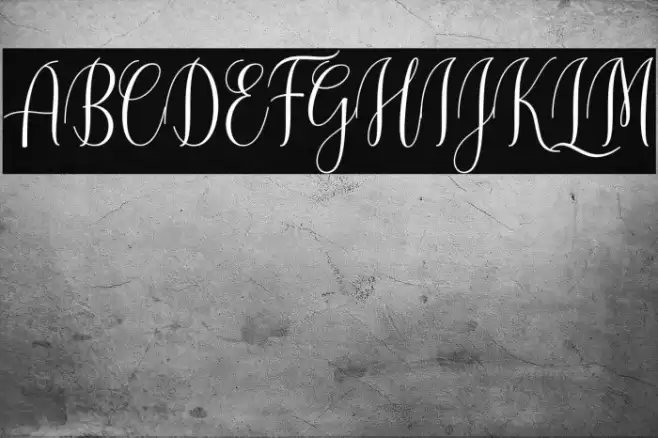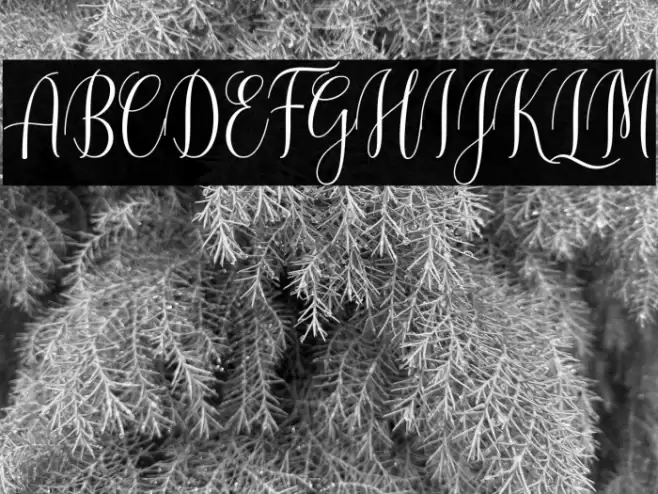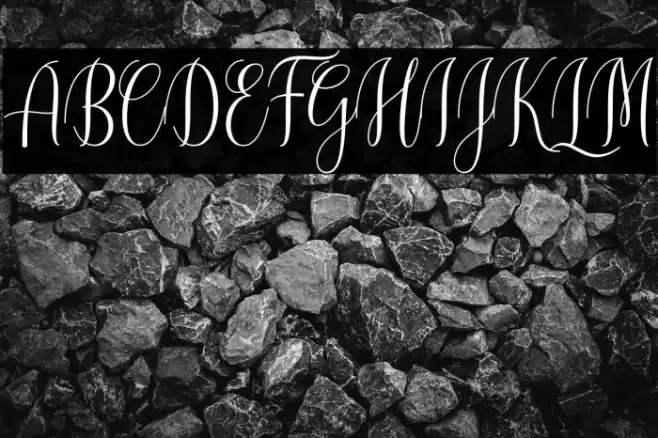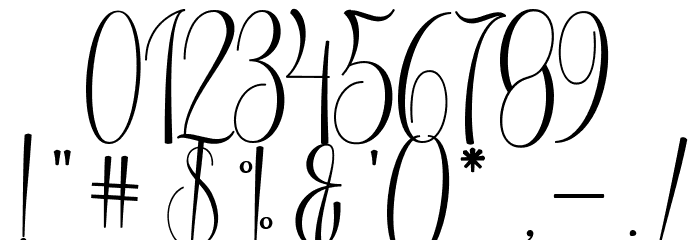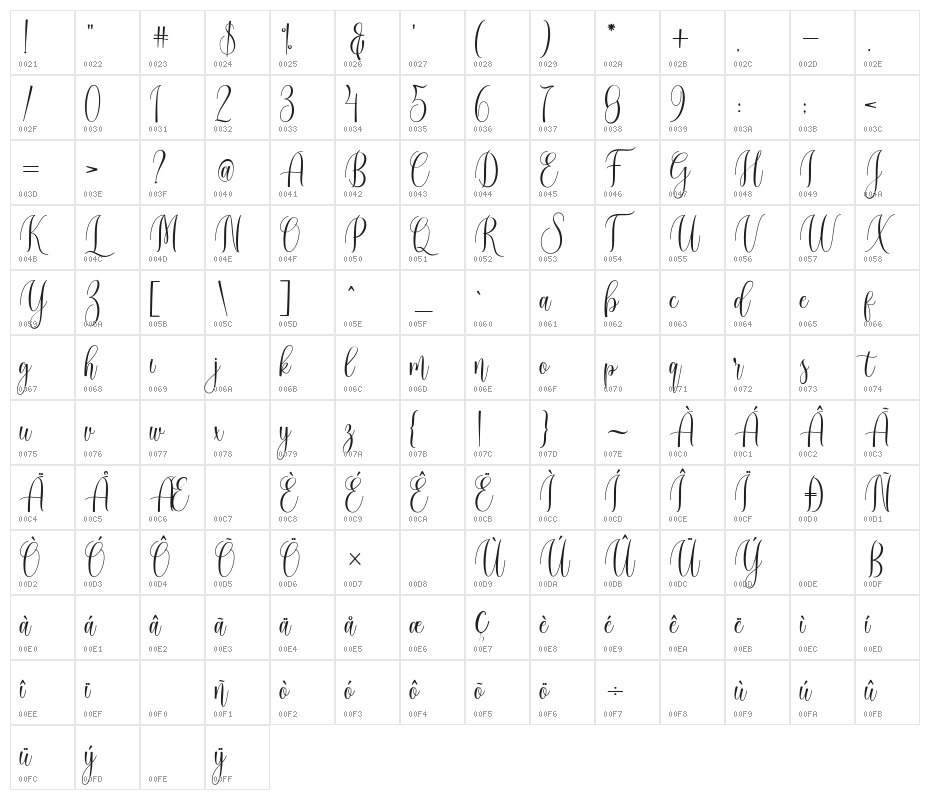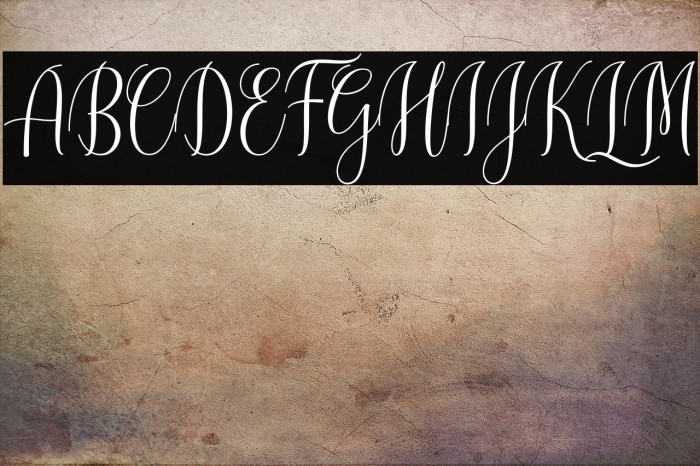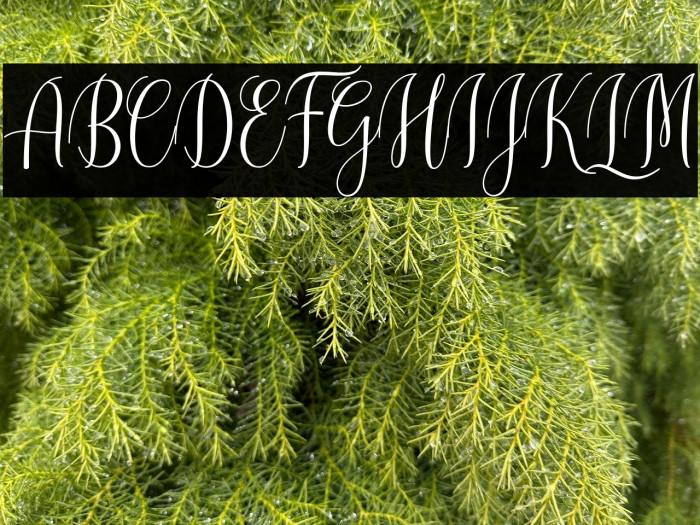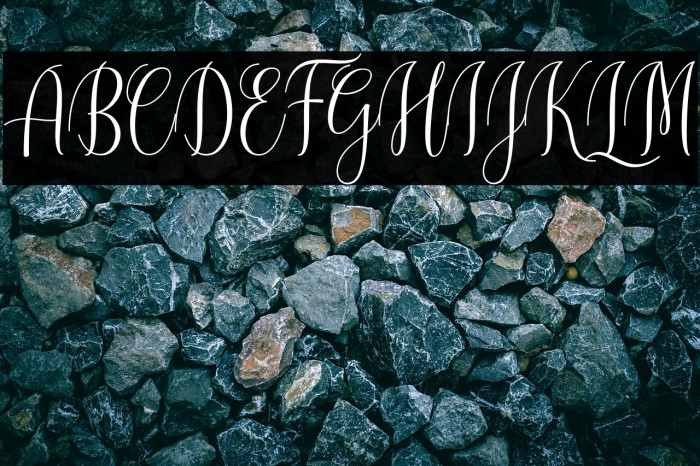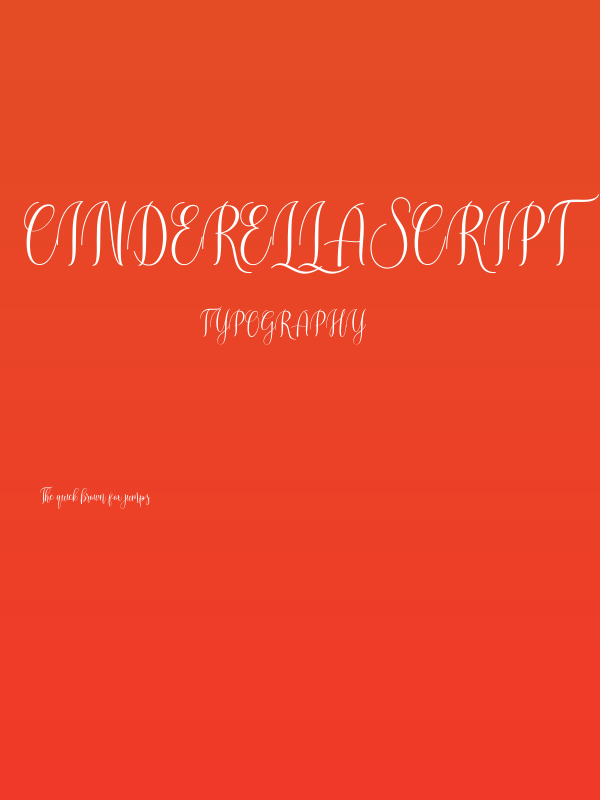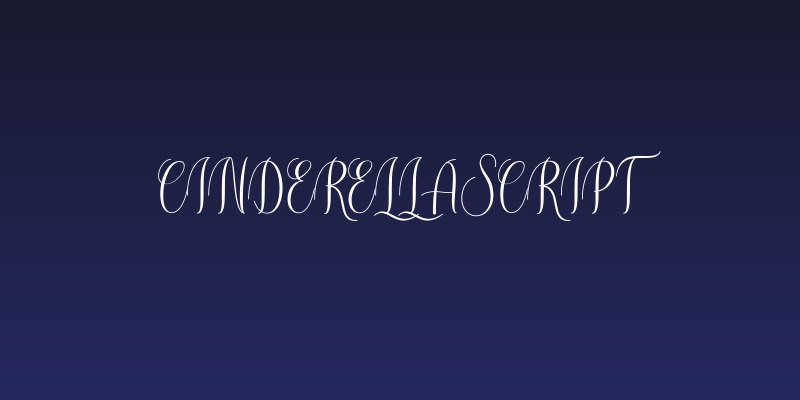
CinderellaScript Font
CinderellaScript Description
This elegant script font features flowing, interconnected letters with a graceful and sophisticated style. The uppercase letters are tall and slender, with sweeping curves and delicate flourishes that add a touch of refinement. The lowercase letters maintain a consistent flow, with smooth transitions and a slightly more compact form. The numerals are stylishly elongated, matching the overall aesthetic of the alphabet. Special characters are thoughtfully designed to complement the script's fluidity. This font exudes a sense of elegance and charm, making it ideal for formal invitations, branding, and decorative purposes.
An elegant script font with flowing, interconnected letters and graceful flourishes from Uncategorized fonts.
- Font: CinderellaScript
- Proposed Projects: Ideal for wedding invitations, luxury branding, greeting cards, and decorative signage.
- Overall Style: Elegant
- Use Case: Invitations, Branding, Decorative